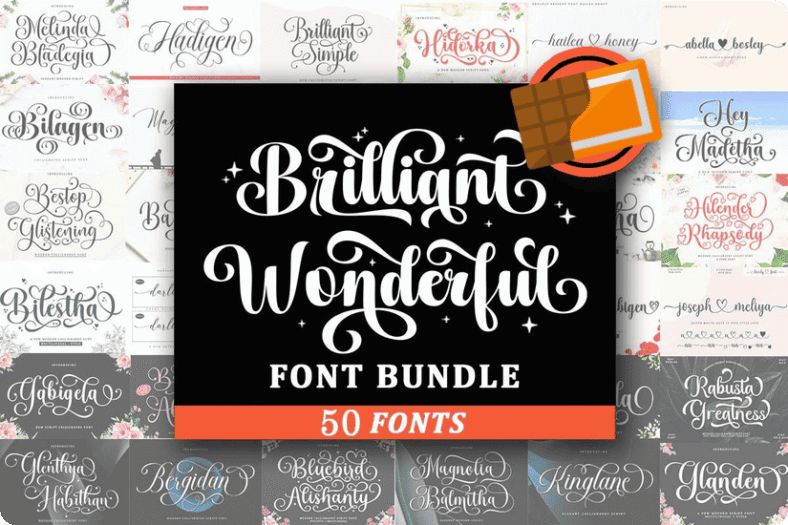
A versatile type library for brands, events, and everyday design
The Brilliant Wonderful Font Bundle brings together 50 premium typefaces from Reyna Studio featuring graceful calligraphy, clean signature scripts, expressive handwritten looks, and a selection of display styles. With a commercial license included, you can confidently produce work for clients, online stores, print‑on‑demand catalogs, classrooms, churches, and community groups. The bundle is tailored for modern workflows: design branding systems, wedding suites, product packaging, merchandise, social posts, and more — all from a cohesive collection that balances elegance with readability.
What you can make with this bundle
- Logos & branding: Pair a refined script with a clean sans caption for signature marks, monograms, and sub‑brands.
- Wedding & event suites: Design invitations, RSVP cards, menus, place cards, thank‑you notes, and seating charts with coordinated type.
- Apparel & merchandise: Create T‑shirts, hoodies, tote bags, hats, mugs, and packaging with scripts that print clearly on DTG, screen, DTF, or vinyl.
- Social & marketing: Build Instagram carousels, story highlights, Pinterest pins, and email headers that read well on mobile.
- Stationery & classroom: Produce worksheets, labels, calendars, and printable wall art with friendly, legible letterforms.
- POD & small business: Launch seasonal collections quickly for Etsy, Shopify, and craft fairs using ready‑to‑license fonts.
Key benefits at a glance
- 50 fonts, one license: A broad palette for headlines, body text, accents, and signatures — without juggling multiple purchases.
- Balanced aesthetics: From airy calligraphy to tidy signatures, styles are designed for clarity on screens and in print.
- Workflow‑ready: Tested with popular software, cutters, and print processes so you can move from concept to finished goods with fewer edits.
- Consistent branding: Build typography systems that keep product lines and campaigns unified.
Included typefaces (by Reyna Studio)
Brithani Absolute • Disney • Bedgan • Bridgen • Bendina • Baileyda • Hilender Rhapsody • Baba Badita • Grace Brilliant • Halena Jordan • Brilliant Simple • Bluebird Alishanty • Magthina Blessing • Darlia Nephan • Balmida • Amedina • Blenda Darling • Abella Bosley • Jedan Galon • Hey Madetha • Bilestha • Bestop Glistening • Rabusta Greatness • Glenthya Habithan • Dahgean • Hello Starlight • Balegad • Bilagen • Kinglane • Hidorka • Slatigen • Glanden • Midane Baleyne • Brilliant Wonderful • Gabigela • Maletha • Bodaholic • Daliya Abigen • Hailea Honey • Glanlen • Abongia • Sweetie Anabela • Sophia Honey • Wedding Holiday (display) • Melinda Bladegia • Hadigen • Bergidan • Melindan • Bahgila • Magnolia Balmitha
Note: Fonts range from ornate calligraphy to clean signatures and display titles, giving you flexible pairings for headlines, subheads, and body copy.
Who benefits from this bundle
- Brand designers & freelancers: Build logo suites and social kits quickly without searching for new type for every client.
- Wedding planners & stationers: Create cohesive invitation sets with mix‑and‑match scripts and matching display faces.
The Brilliant Wonderful Font Bundle equips you with a dependable, high‑value typography set for branding, events, apparel, and marketing. With 50 carefully crafted fonts, broad software compatibility, cutter‑friendly curves, and a commercial license, you can tackle client briefs and product launches with confidence. Install once, build repeatable pairings, and keep every deliverable consistent from mockup to finished item.